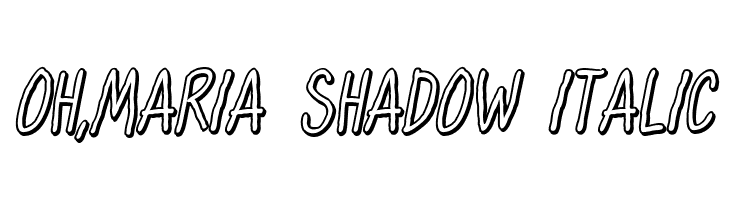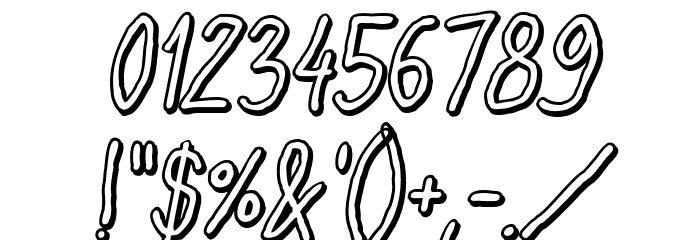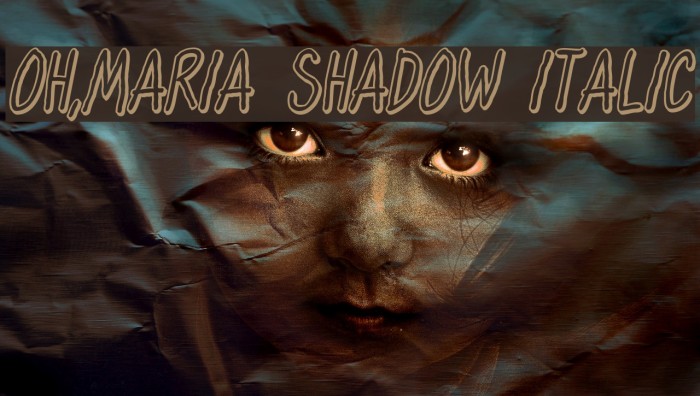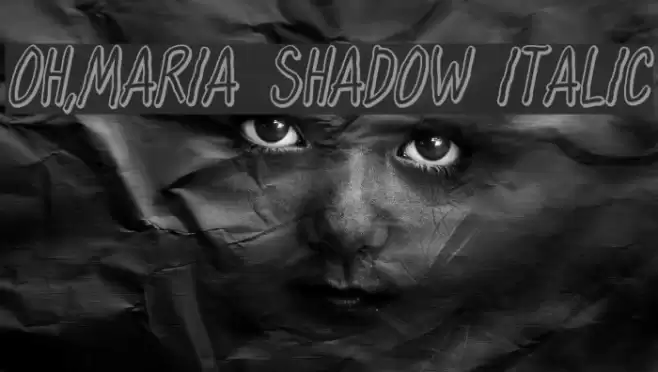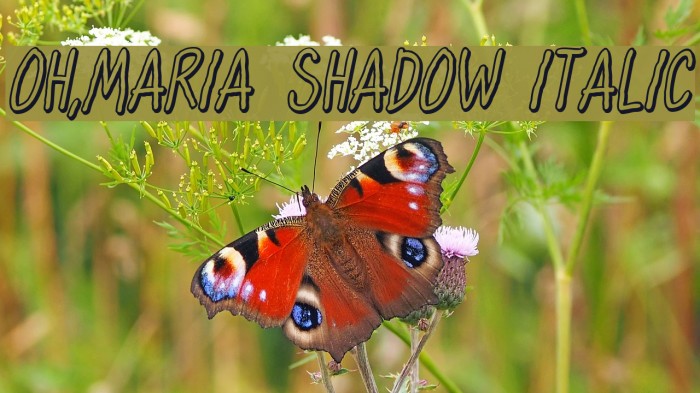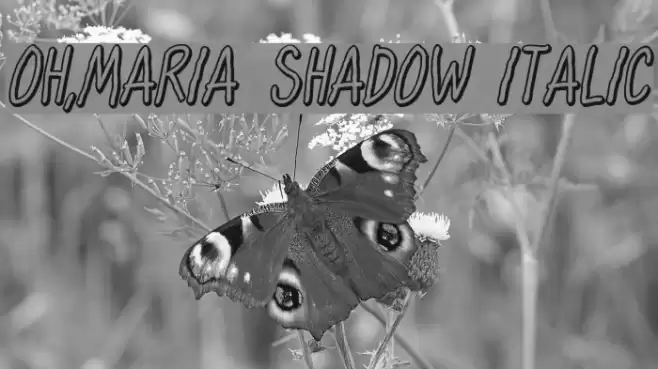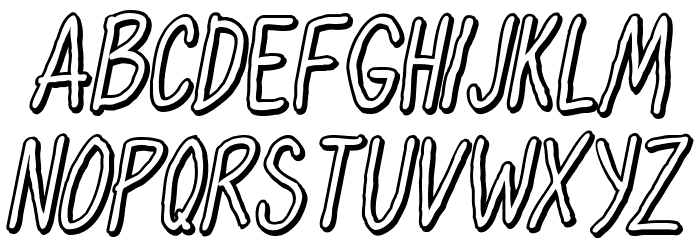
Oh,Maria Shadow Italic Font
Oh,Maria Shadow Italic Description
This font features a playful and dynamic style with a shadow effect that adds depth and dimension to each character. The letters are slightly italicized, giving them a sense of motion and fluidity. The bold outlines enhance the visibility and make the text stand out, while the inner strokes are thinner, creating a balanced contrast. The overall design is casual and approachable, making it suitable for creative and informal projects. The characters are well-spaced, ensuring readability even at smaller sizes. This font includes a full set of uppercase and lowercase letters, numbers, and a variety of special characters, providing versatility for different design needs.
| Overall Style | Playful, Casual |
| Proposed Projects | Ideal for posters, greeting cards, children's books, and playful branding. |